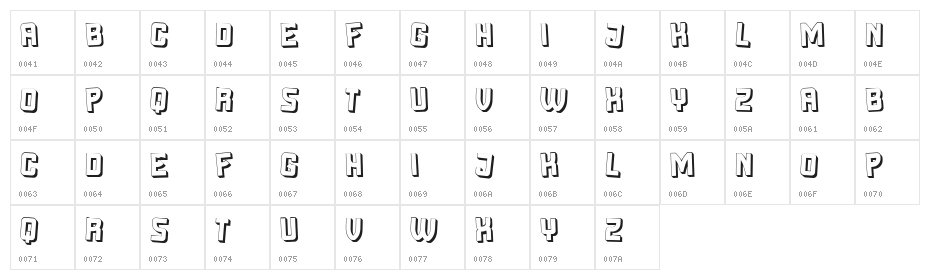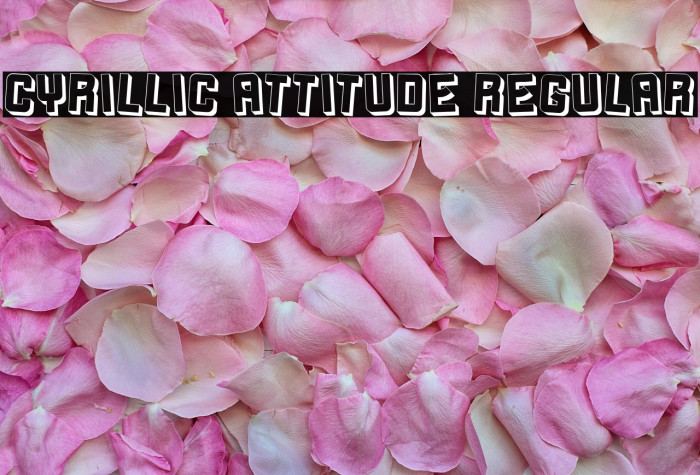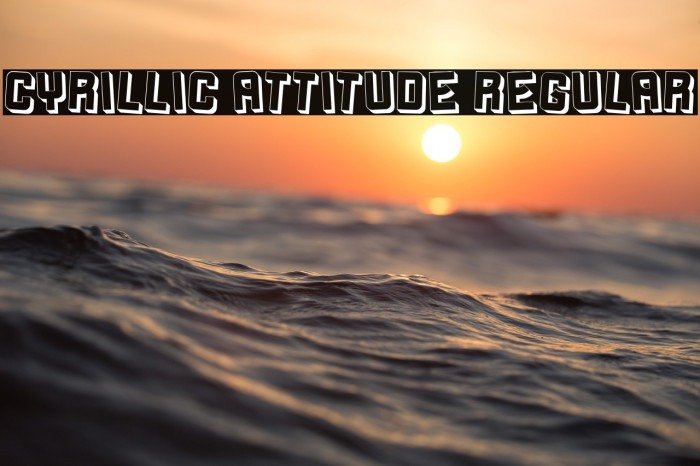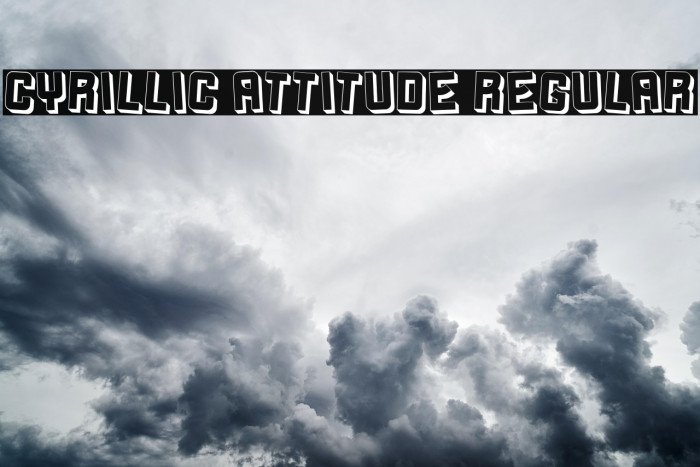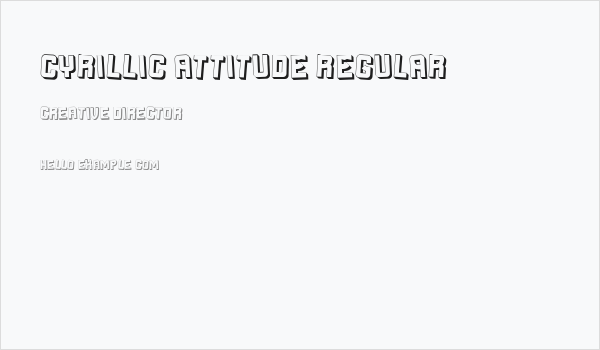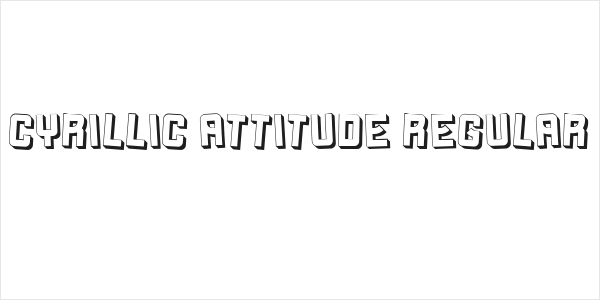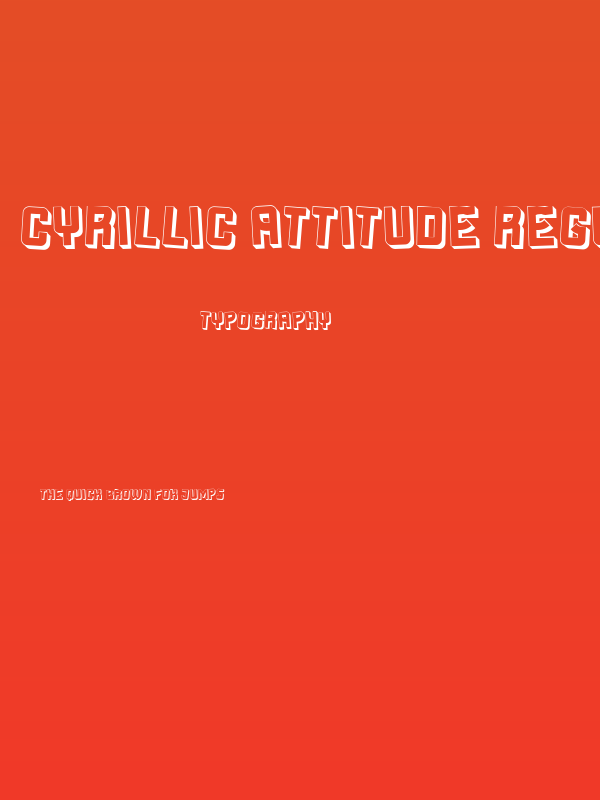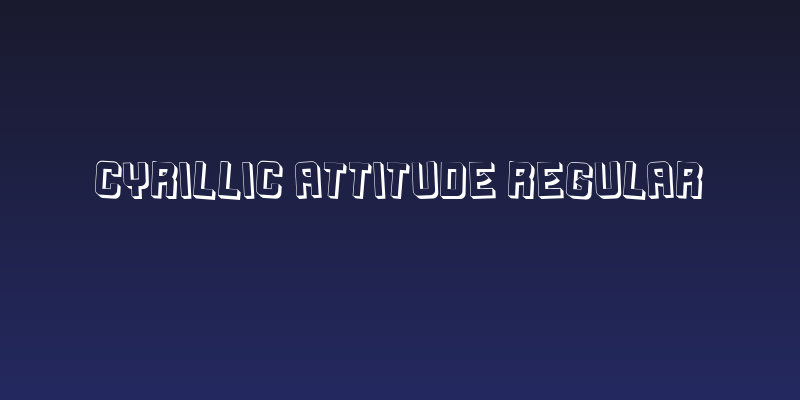
Cyrillic Attitude Regular Font
Cyrillic Attitude Regular Description
This font features a bold, playful design with a three-dimensional effect that gives each character a shadowed appearance. The letters are uppercase and have a cartoonish, blocky style that adds a sense of fun and energy. The thick strokes and exaggerated angles make it stand out, while the consistent width across characters ensures readability. The font's unique style is perfect for projects that require a lively and dynamic look, such as children's books, comic strips, or playful branding. Its bold presence makes it ideal for headlines and titles, where it can capture attention and convey a sense of excitement.
| Overall Style | Playful, Cartoonish |
| Use Case | Headlines, Titles, Branding |
| Proposed Projects | Children's books, comic strips, playful branding, headlines, and titles. |